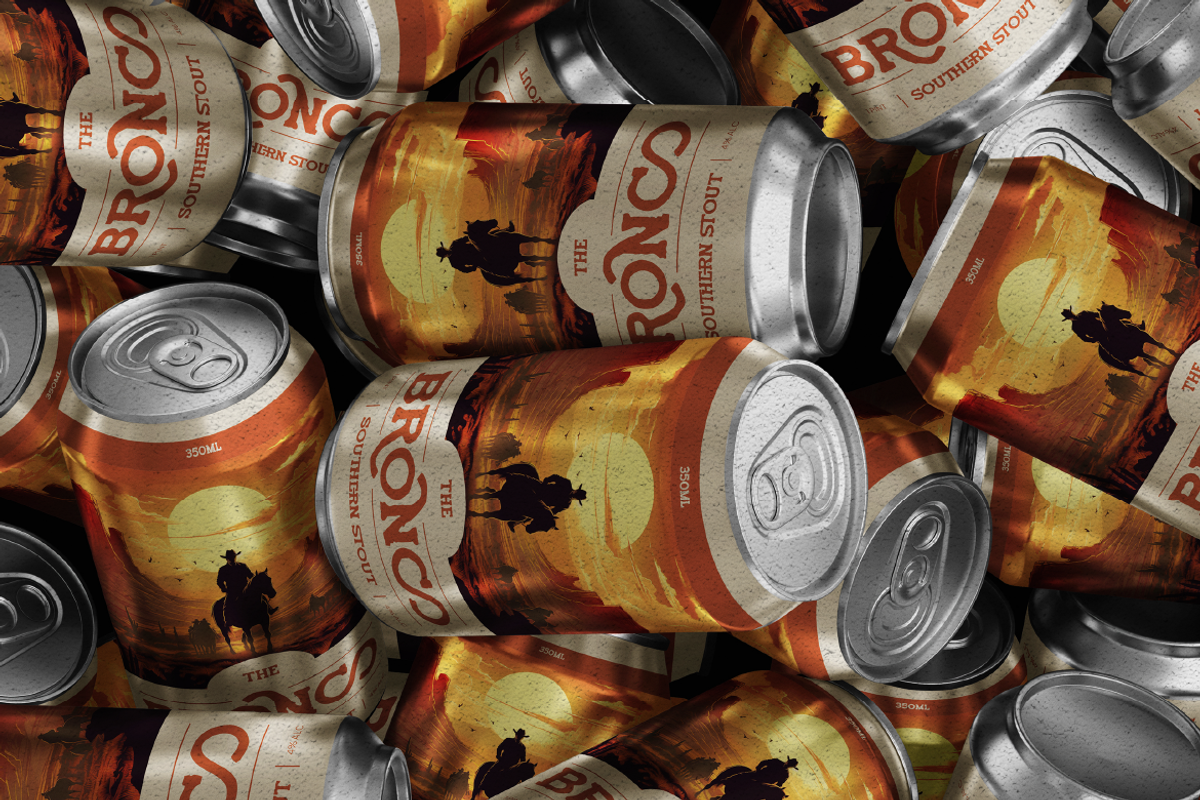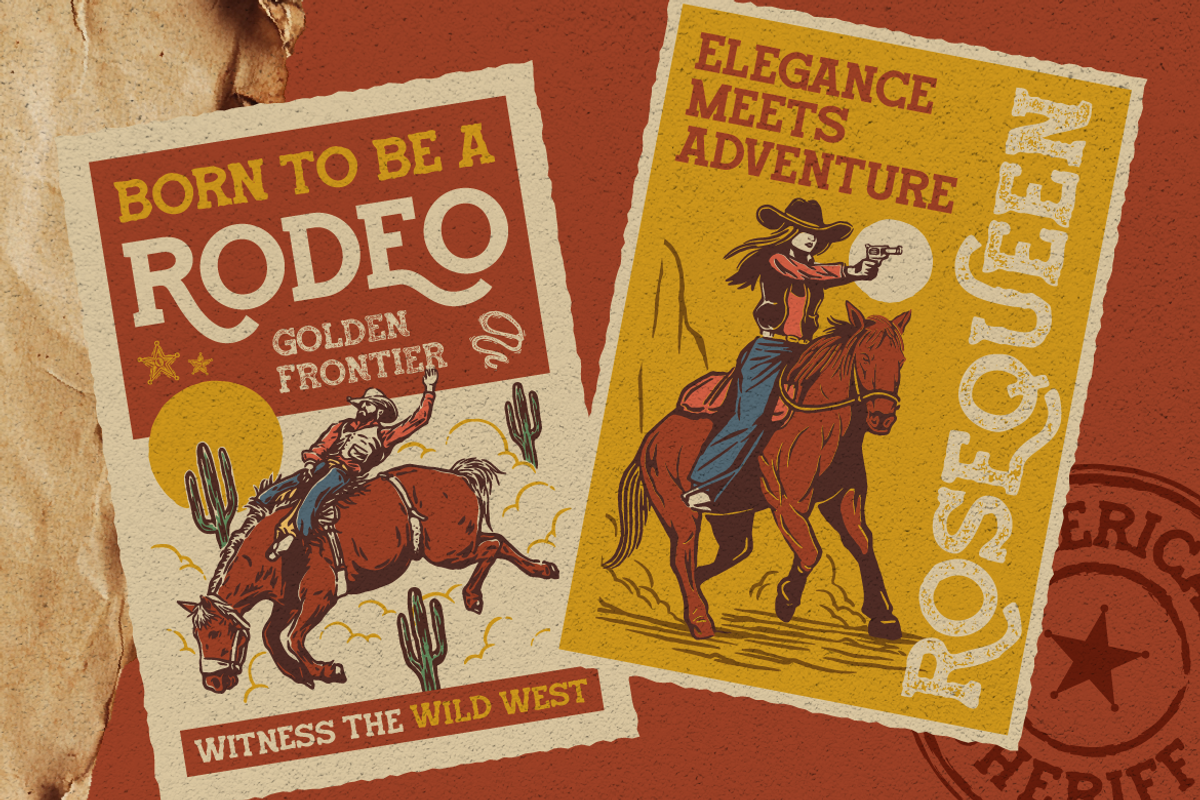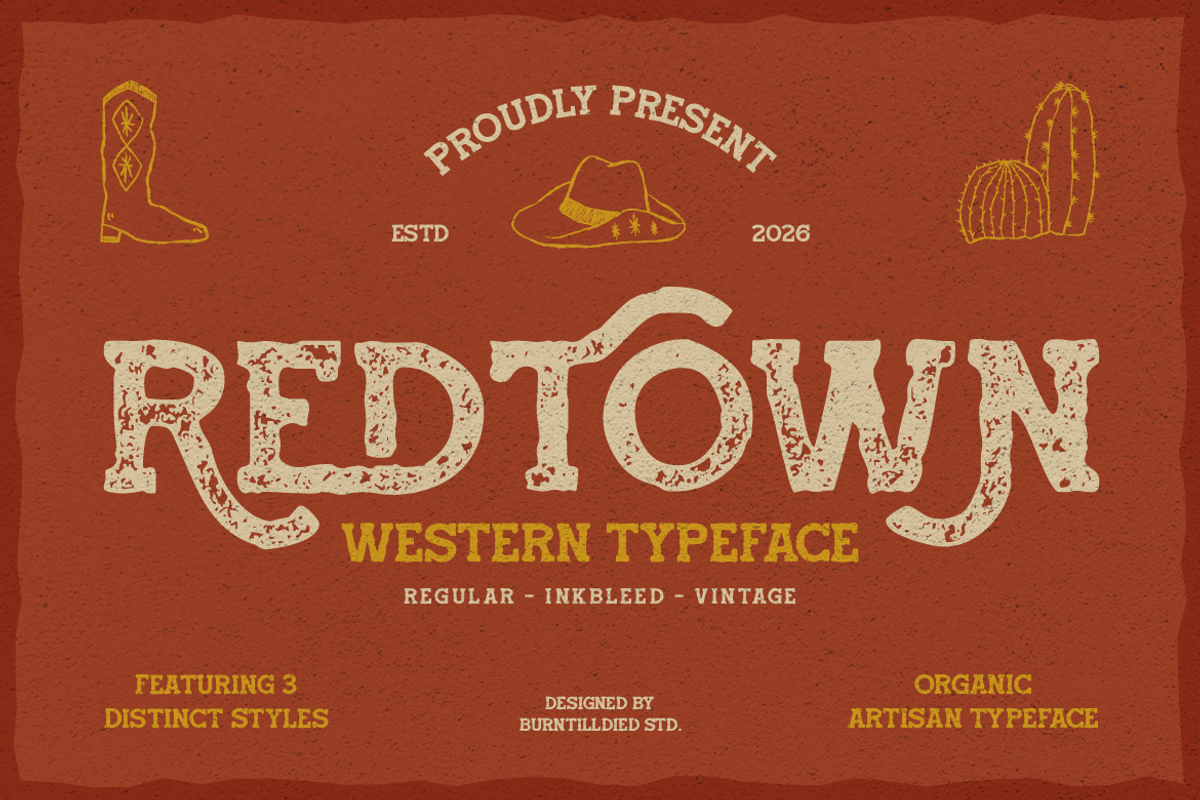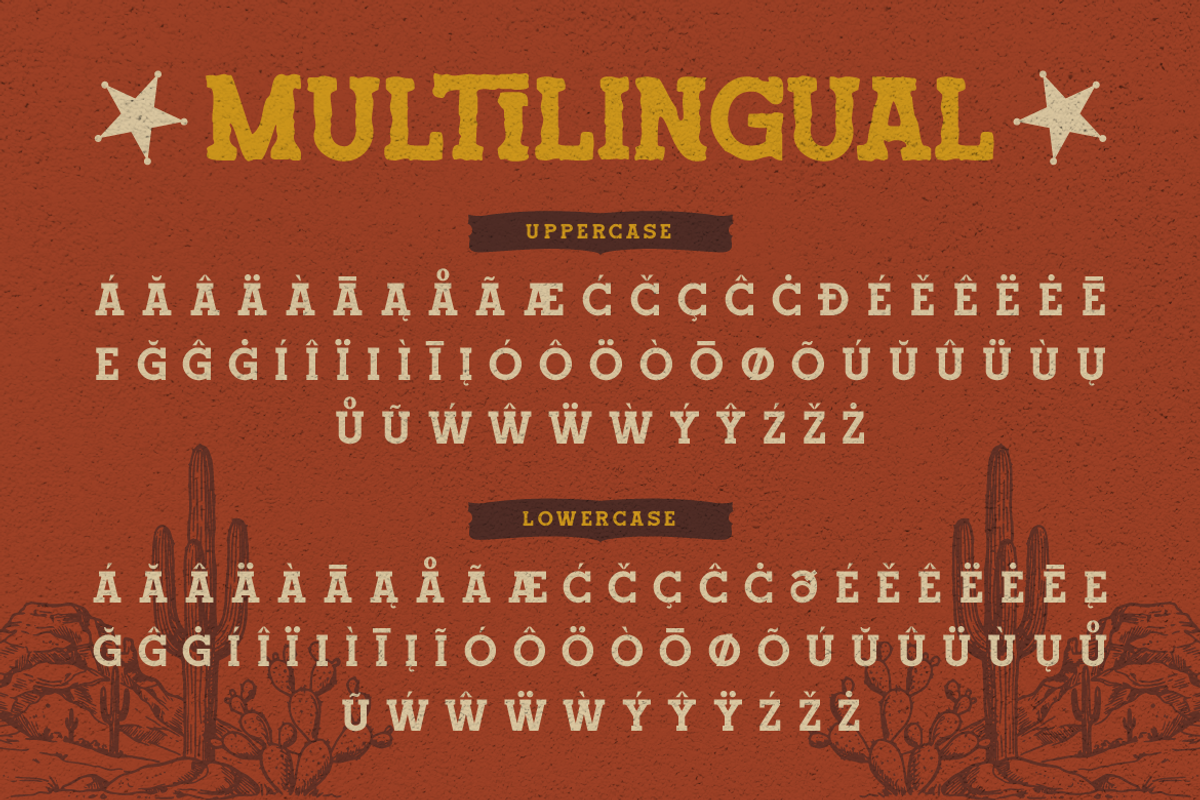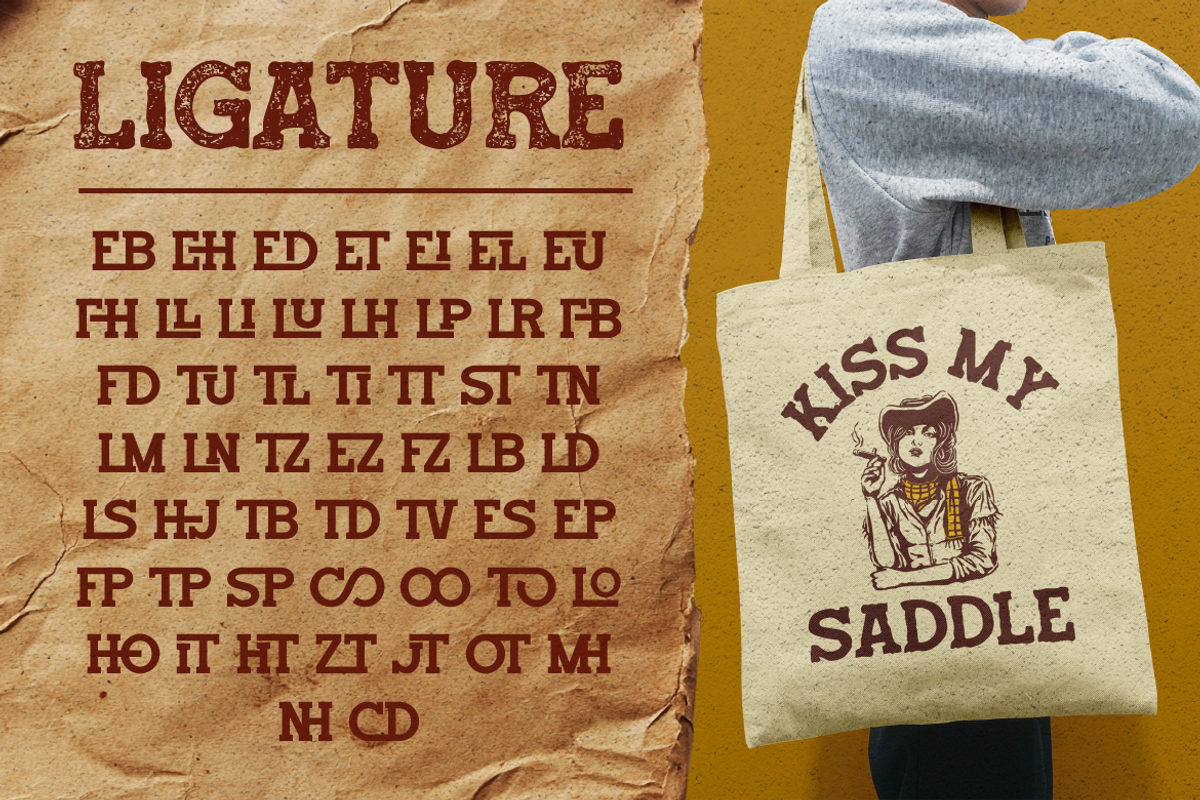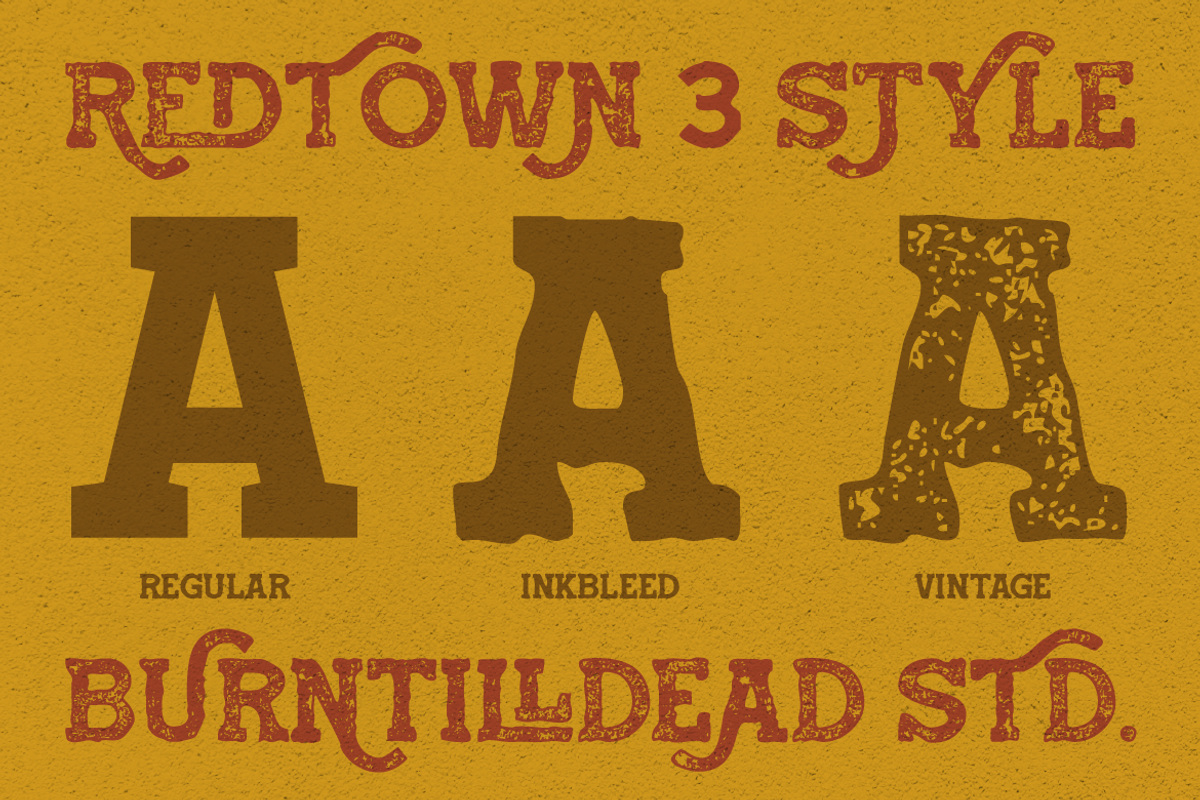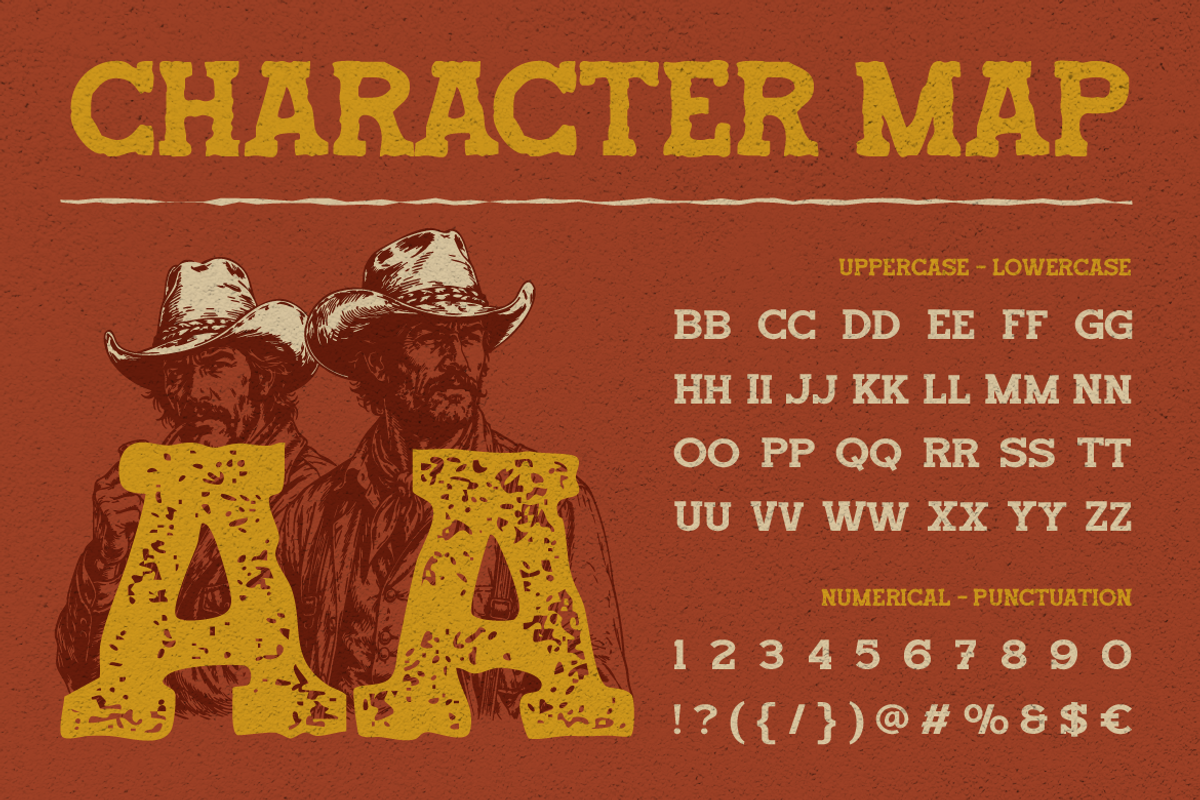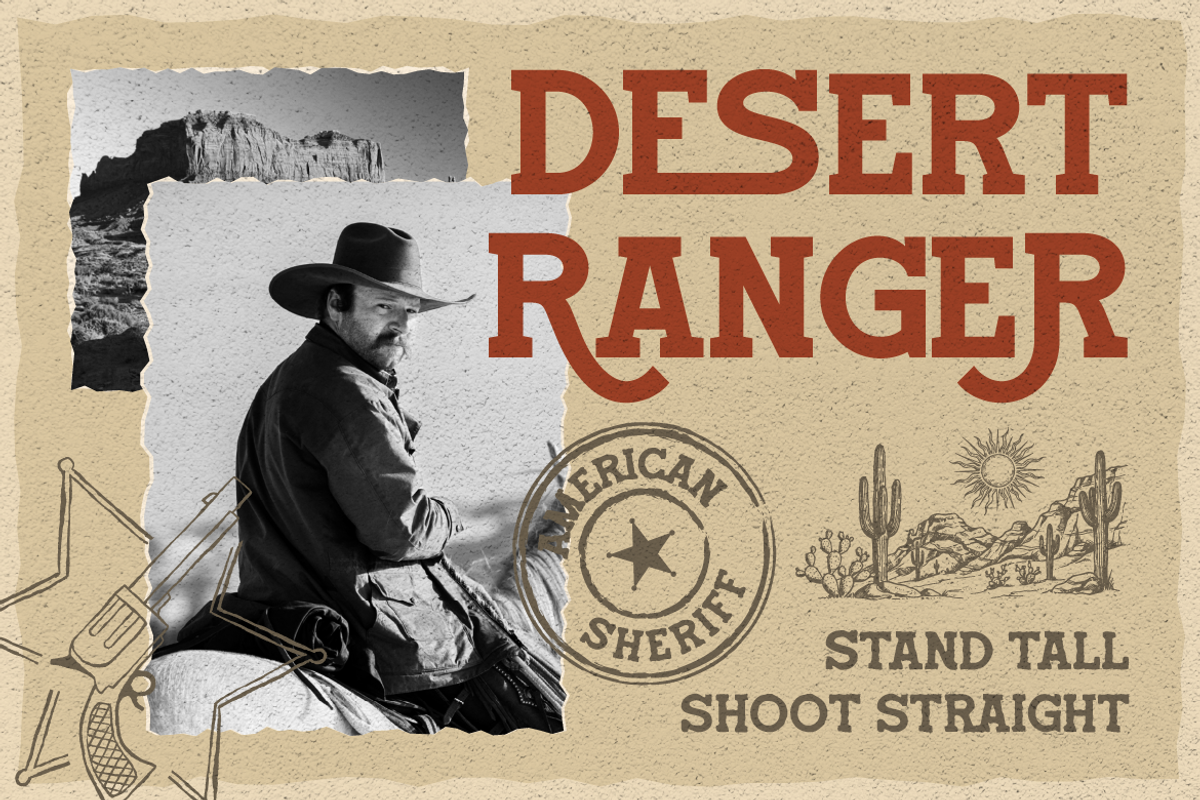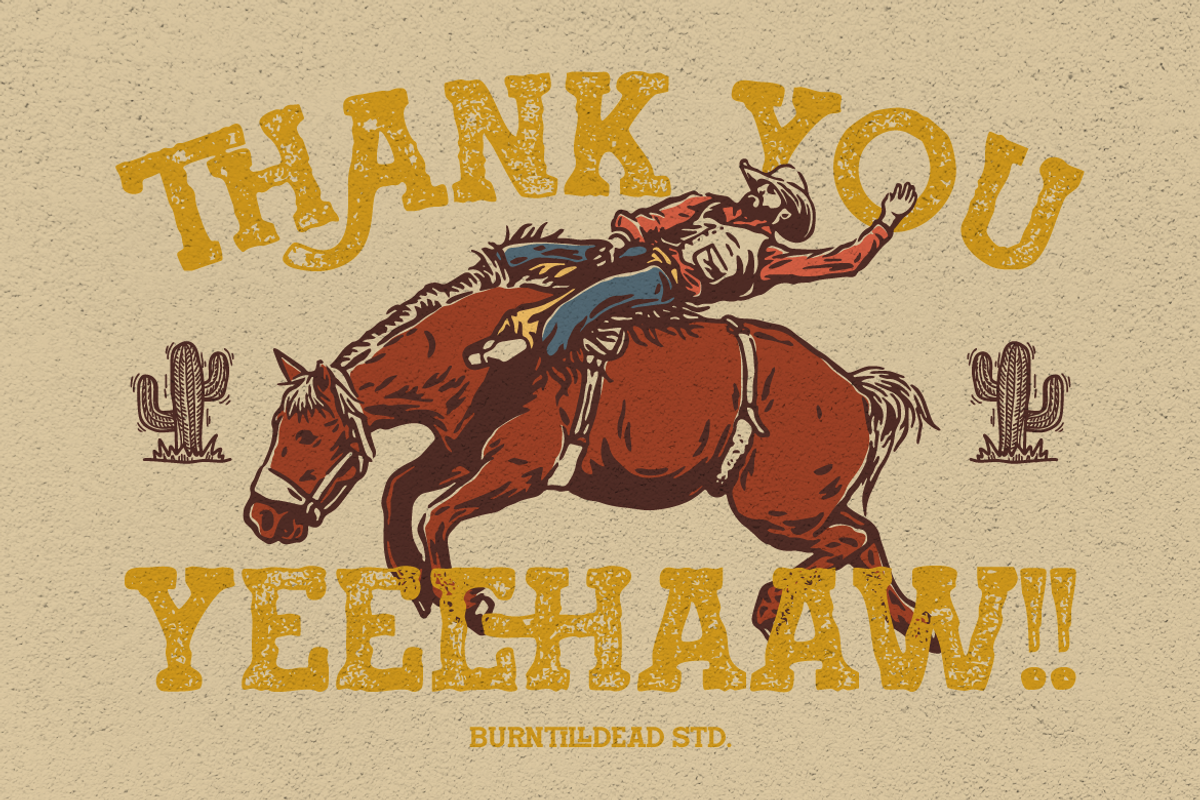
Redtown - Western Typeface
Redtown is a bold western typeface inspired by the spirit of the wild frontier. With its rugged shapes, textured details, and handcrafted feel, this font brings an authentic vintage cowboy vibe into your designs.
Designed to capture the essence of old western signage, saloon posters, and desert adventures, Redtown comes with 3 distinct styles: Regular, Inkbleed, and Vintage. Each style adds its own personality—from clean bold lettering to rough ink textures that feel raw and organic.
Perfect for creating strong, eye-catching typography, Redtown works beautifully for branding, posters, packaging, logos, and anything that needs a touch of western attitude and nostalgic charm.
Whether you're designing a whiskey label, rodeo poster, or rustic logo, Redtown delivers a powerful and timeless look.
Western / Cowboy themed designs
Vintage posters & retro branding
Whiskey, beer & packaging design
Logo & badge design
Apparel & merchandise
Rodeo, desert & adventure themes
Editorial headlines & display typography
A - Z set (Uppercase & Lowercase)
Number
Alternate
Ligature
Redtown Characters Map